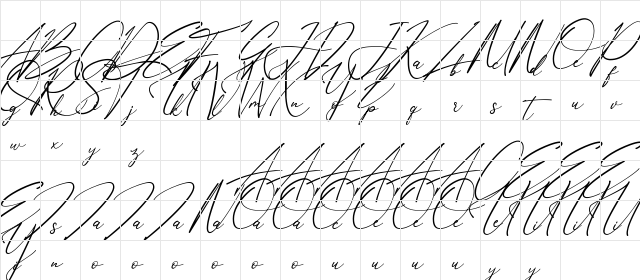
Anthoni Signature Regular
| Foundry | Kotak Kuning Studio |
| Designer | Arif Dwi |
Design Context for Anthoni Signature Typeface
Anthoni Signature is a composed and adaptable typeface that performs quietly and consistently across a wide range of design contexts.